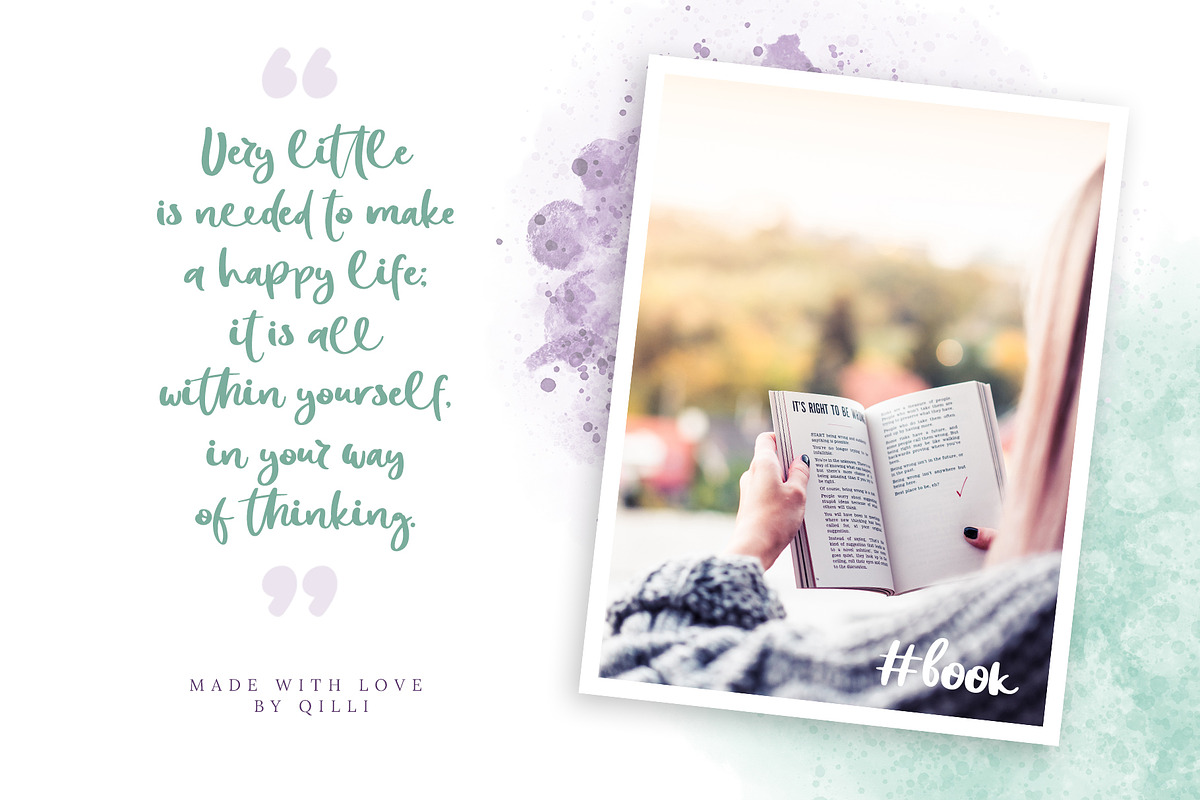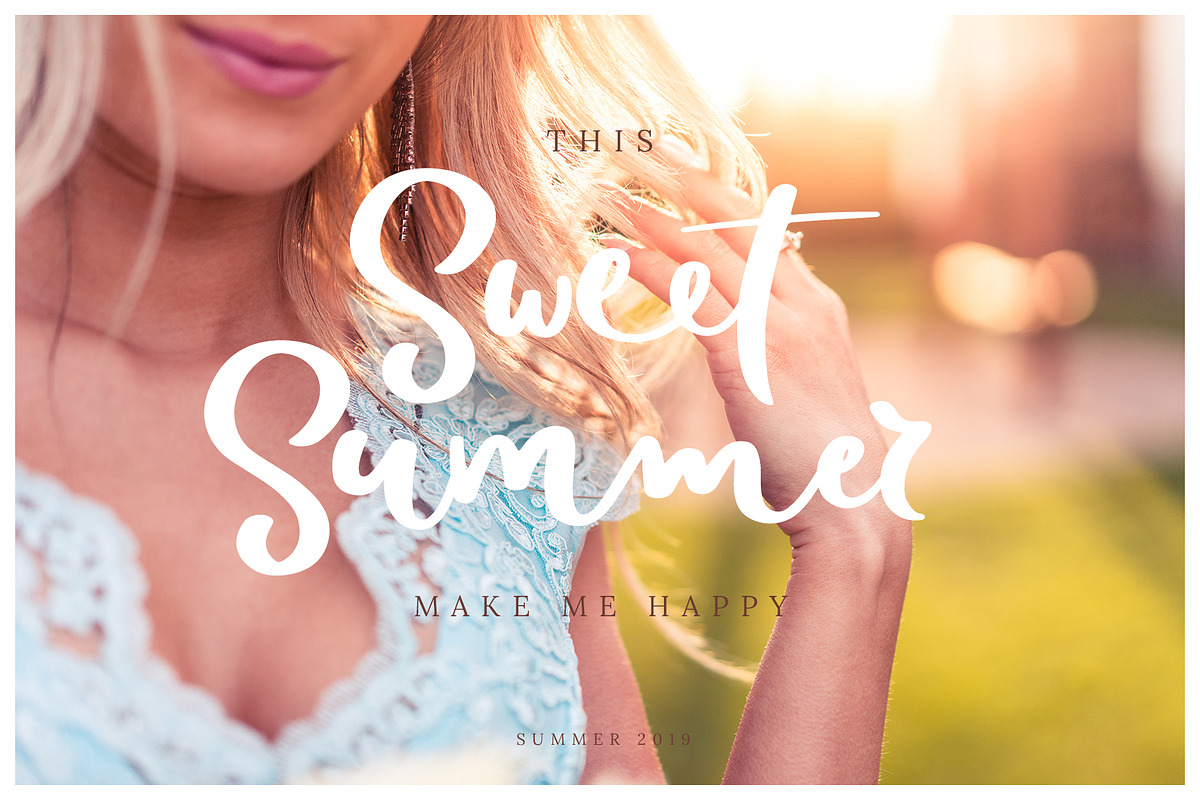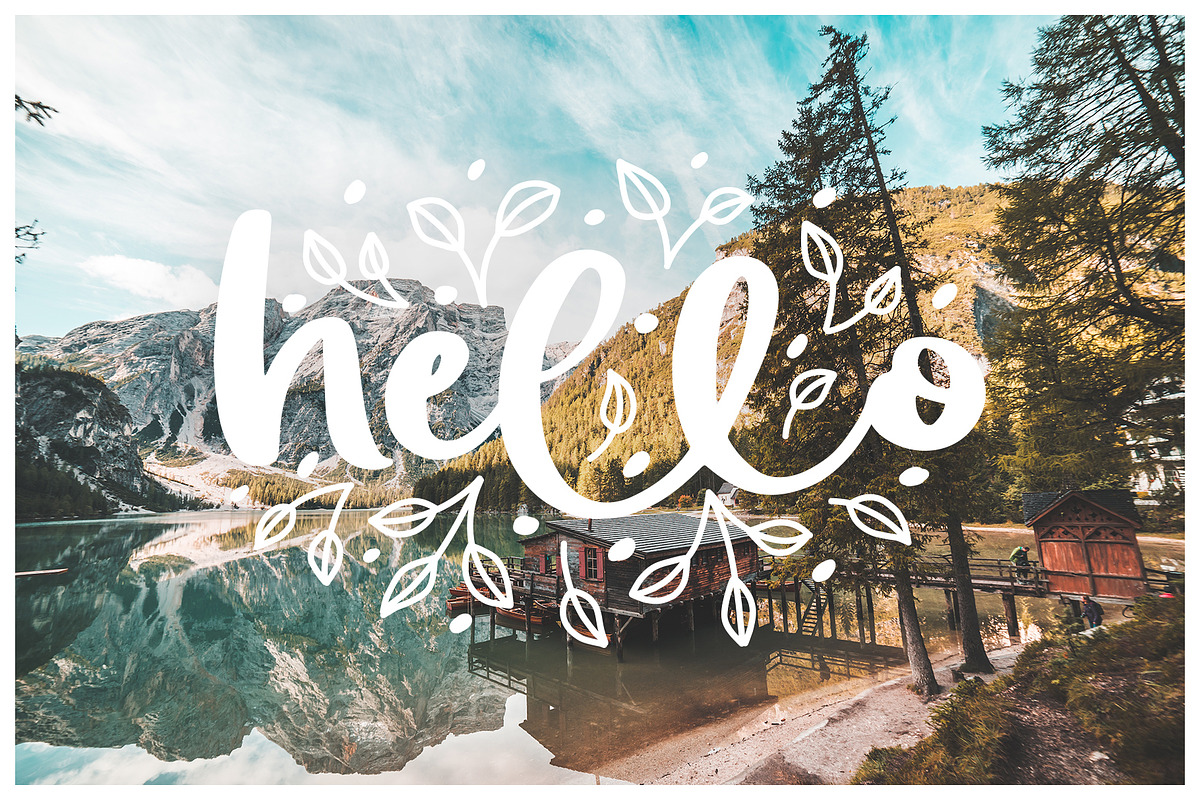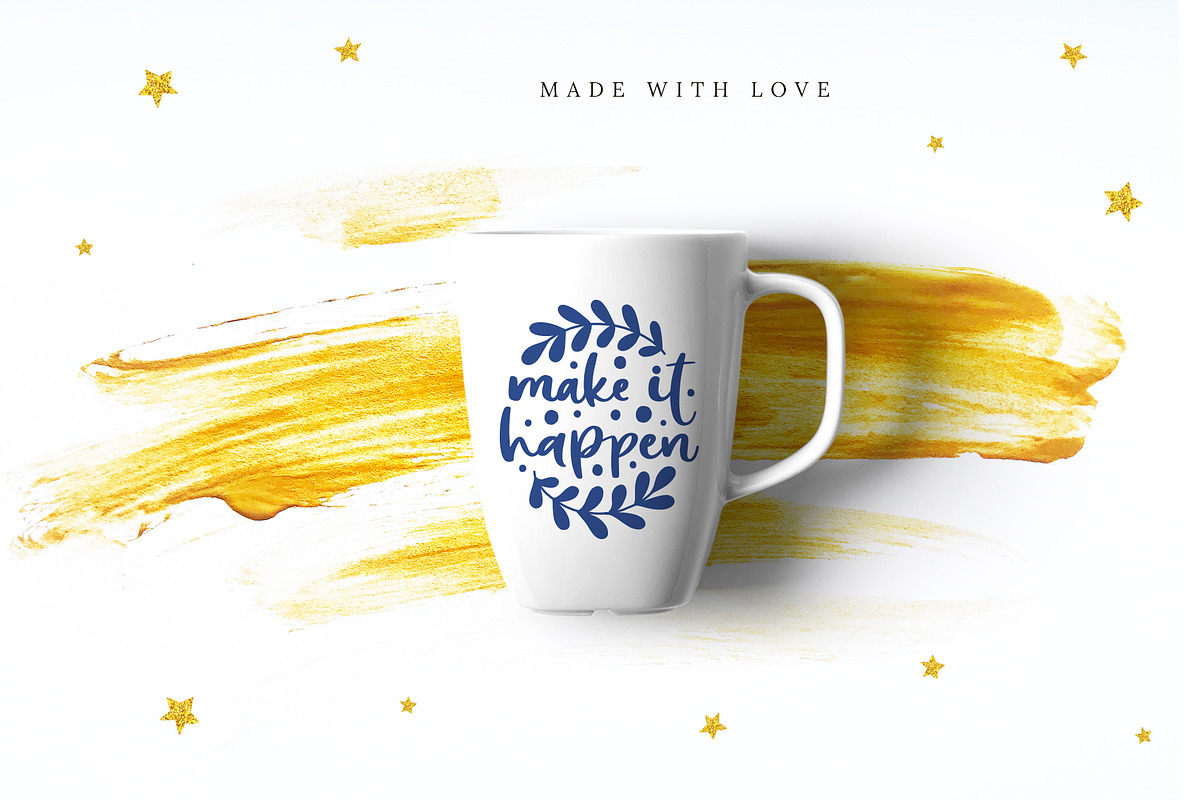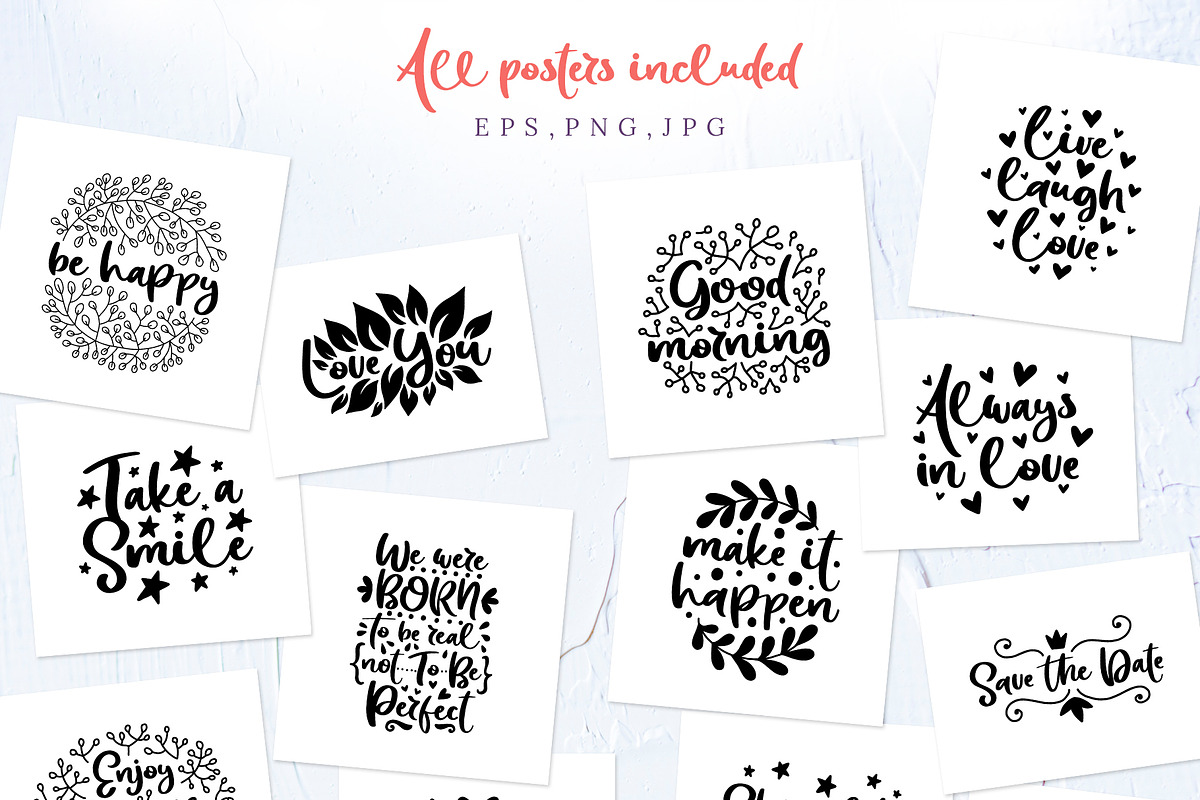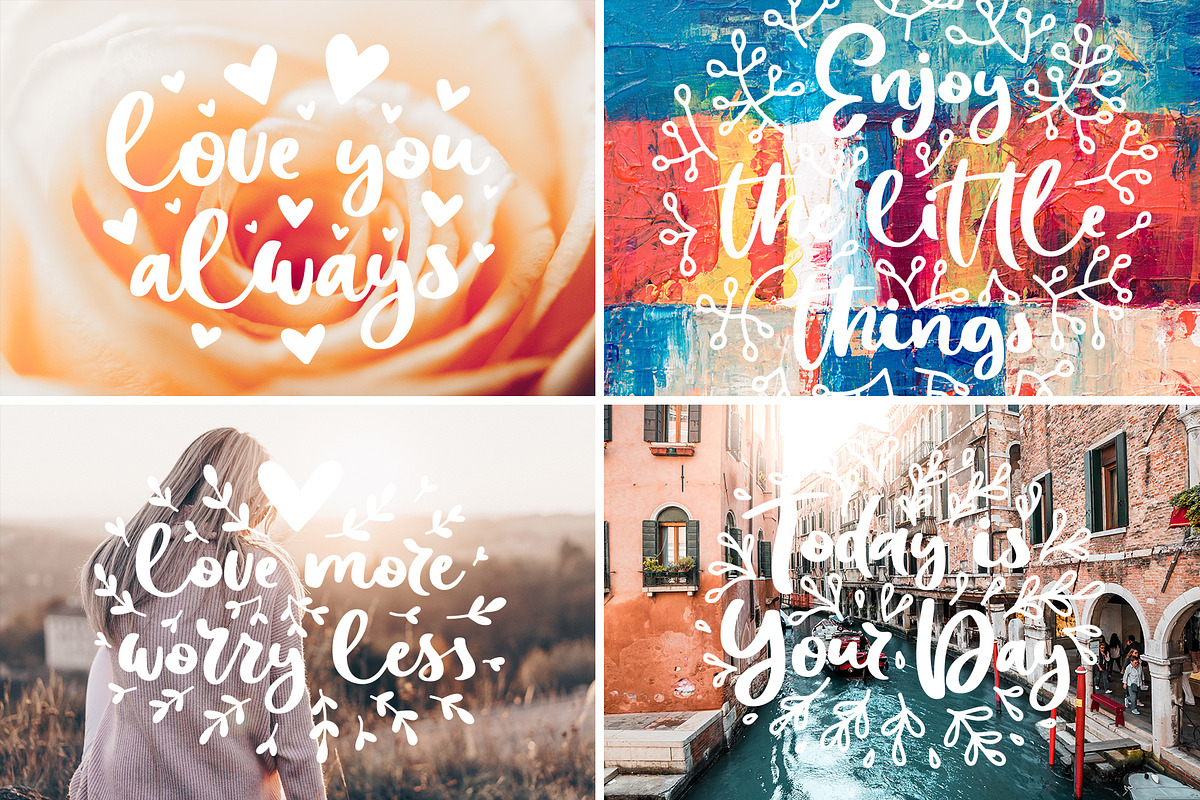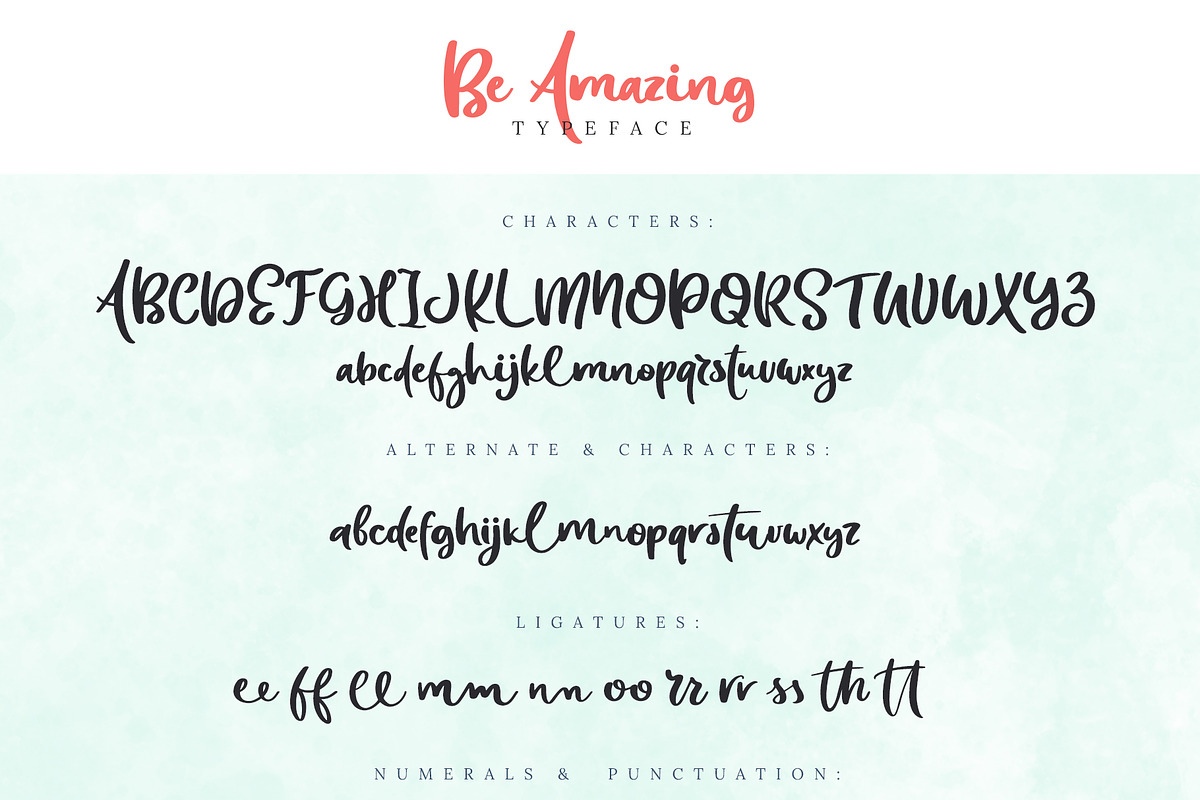
Be Amazing Font with Posters & Decor
♥ Be Amazing - elegant script for your projects! ♥
This hand drawn font is perfect for cards, prints, logos, wedding invitations, arrange illustration and decoration. This pack includes 28 posters and 373 decor elements!
It has upper and lower case letters, numbers, special characters, accents, alternates and ligatures.